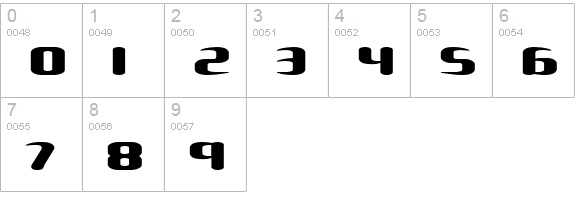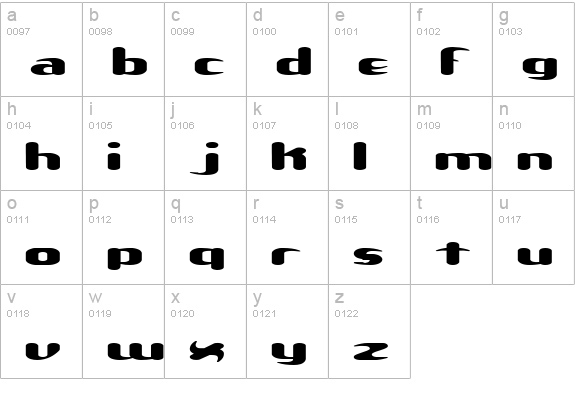
Unexplored Galaxies W -BRK- font is a stunning display typeface that will transport you into the depths of outer space. With its bold and futuristic design, this font is perfect for any project that needs to convey a sense of adventure and exploration. The letters of Unexplored Galaxies W -BRK- font are intricately crafted, featuring unique shapes and angles that mimic the movement of stars and galaxies. The heavy strokes and sharp edges give this font a powerful and dynamic look, making it ideal for headlines, logos, and other attention-grabbing designs. One of the best things about Unexplored Galaxies W -BRK- font is that it is freely available to download at FontsMarket.com. This means that you can add a touch of intergalactic beauty to your designs without having to spend a dime. Whether you're a professional designer or just someone who loves experimenting with fonts, this free download is a must-have in your collection. Unexplored Galaxies W -BRK- font is compatible with various design software, making it easy to incorporate into your projects. Its versatility and eye-catching appeal make it suitable for a wide range of applications, from sci-fi movie posters to futuristic website headers. Don't miss out on the opportunity to explore the uncharted territories of typography with Unexplored Galaxies W -BRK- font. Download it for free today at FontsMarket.com and embark on a journey through the stars. Let your creativity soar as you bring a touch of cosmic wonder to your designs.